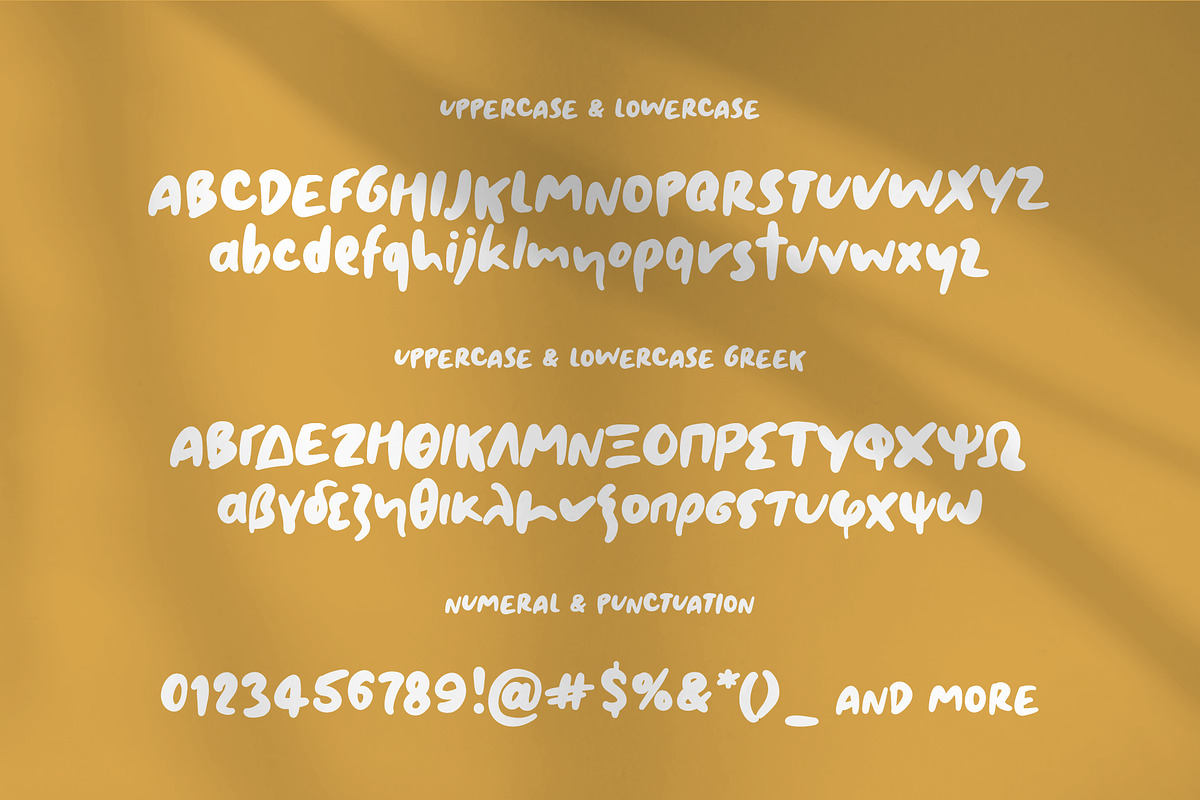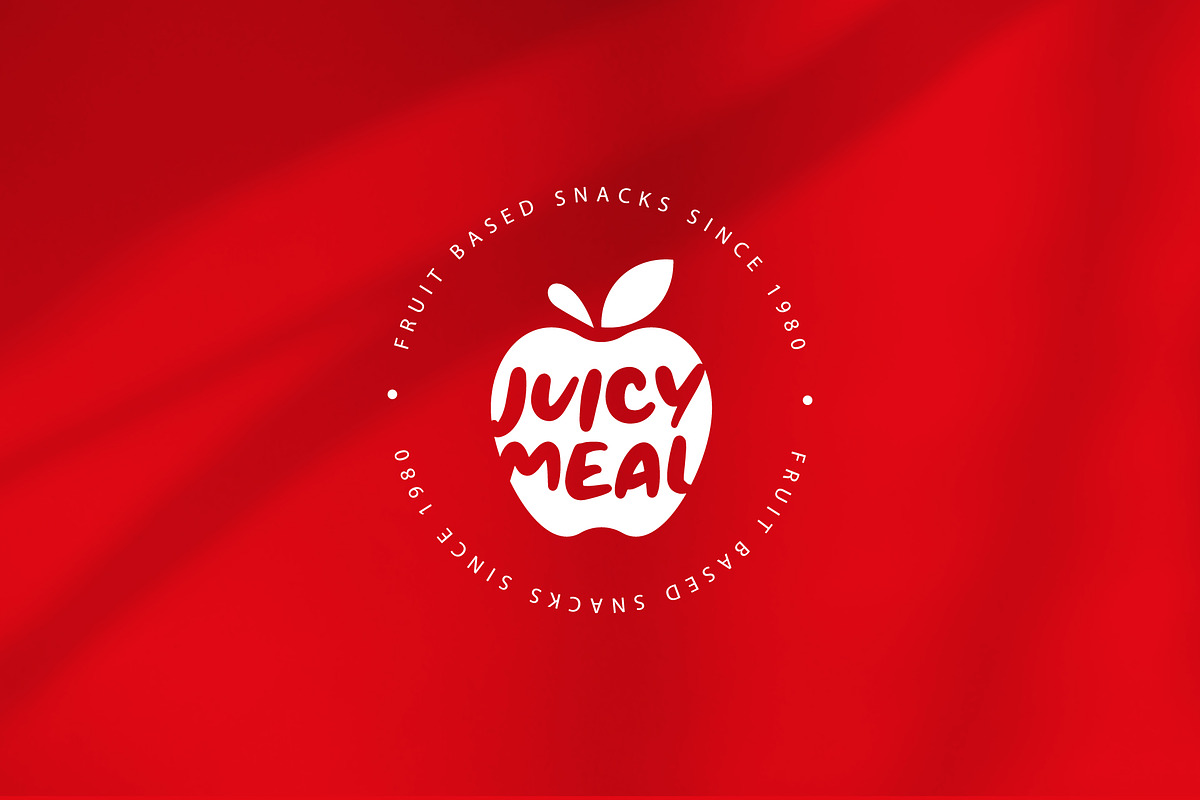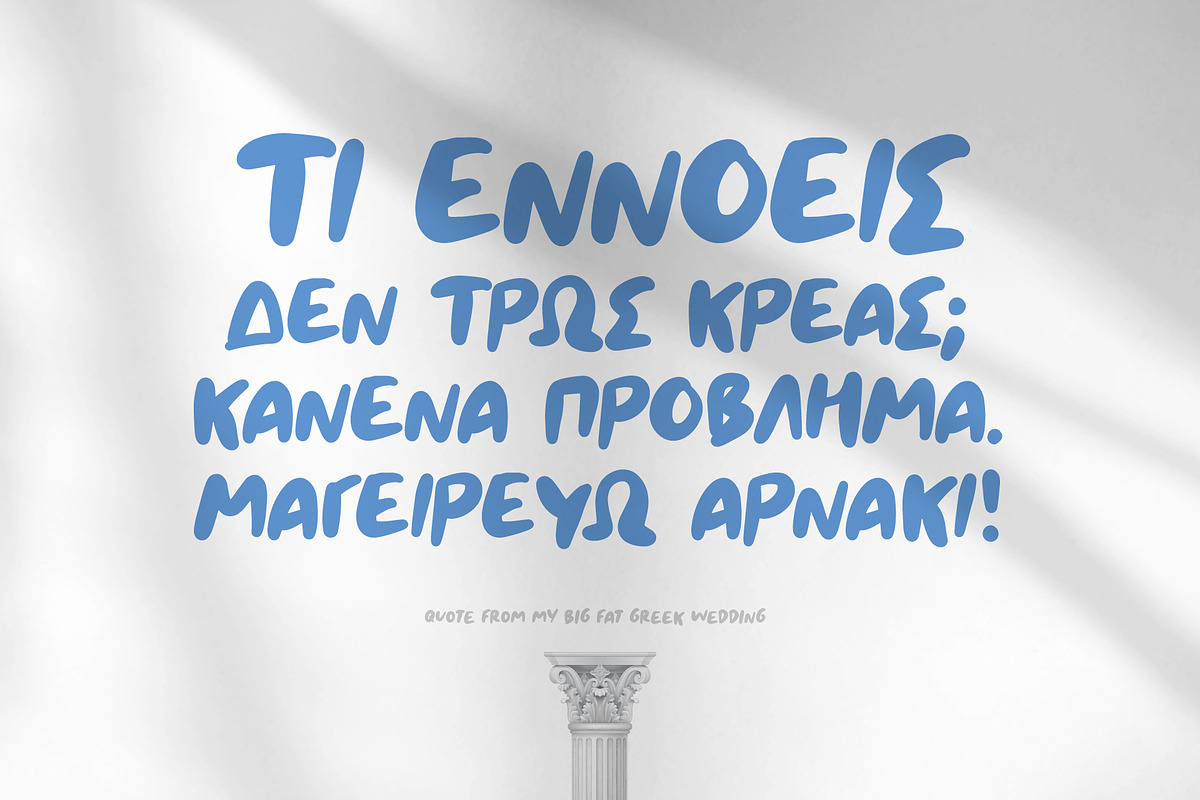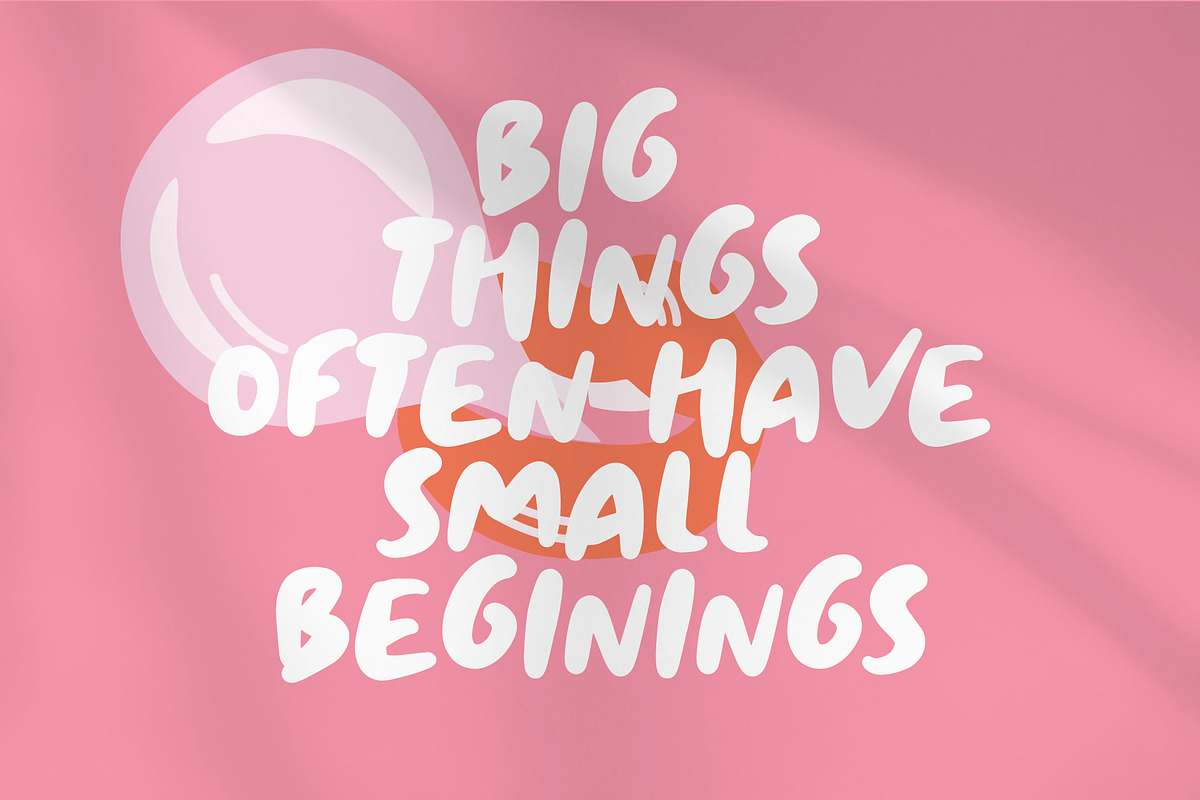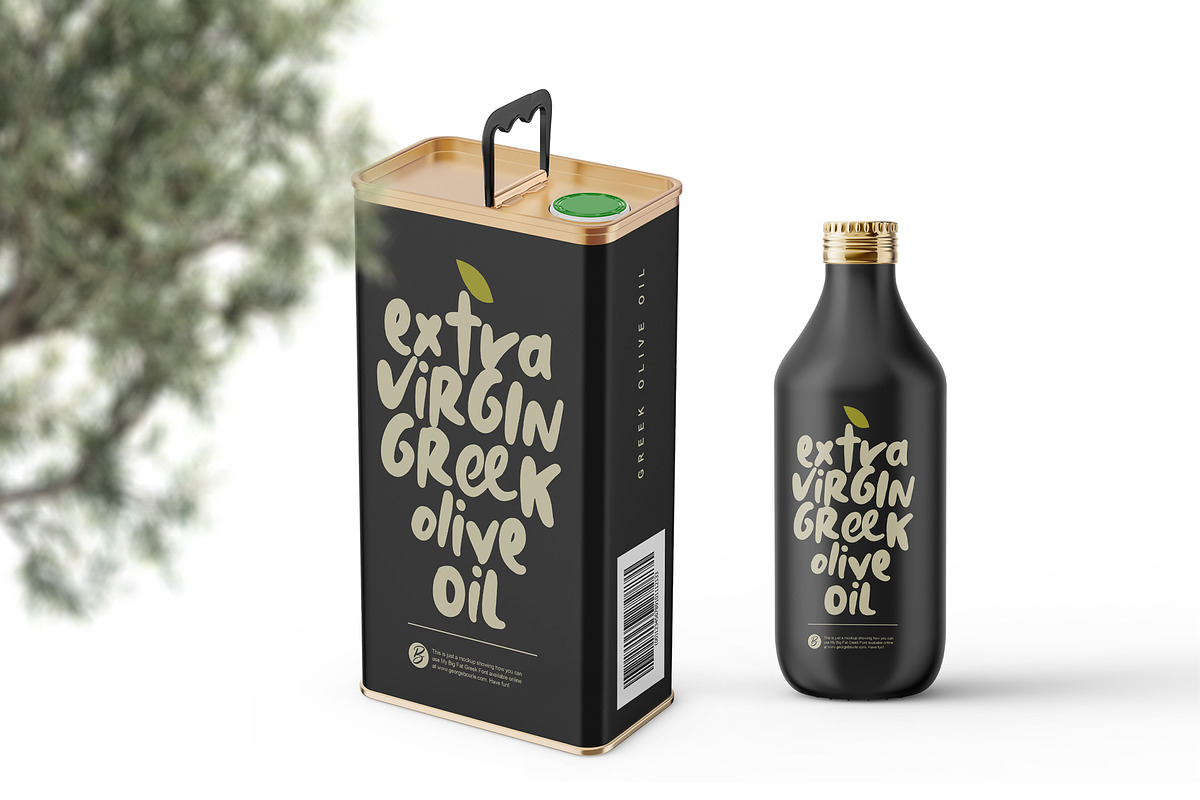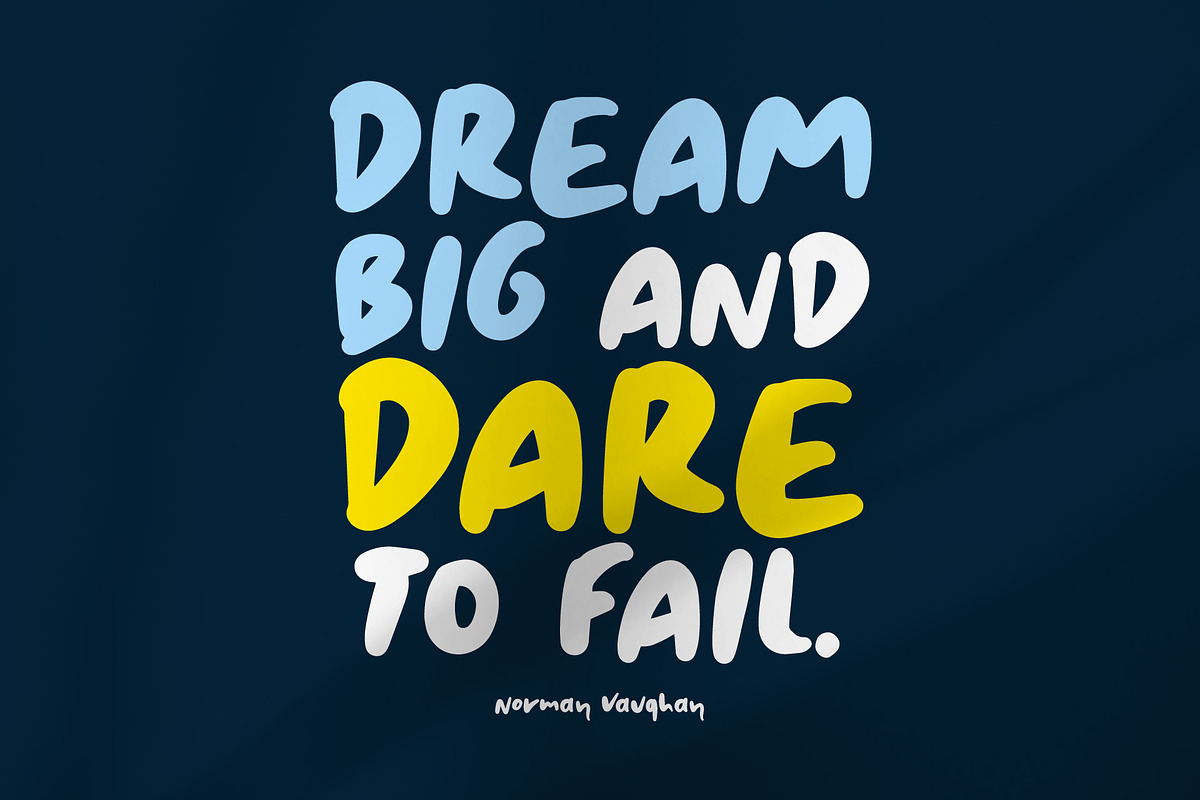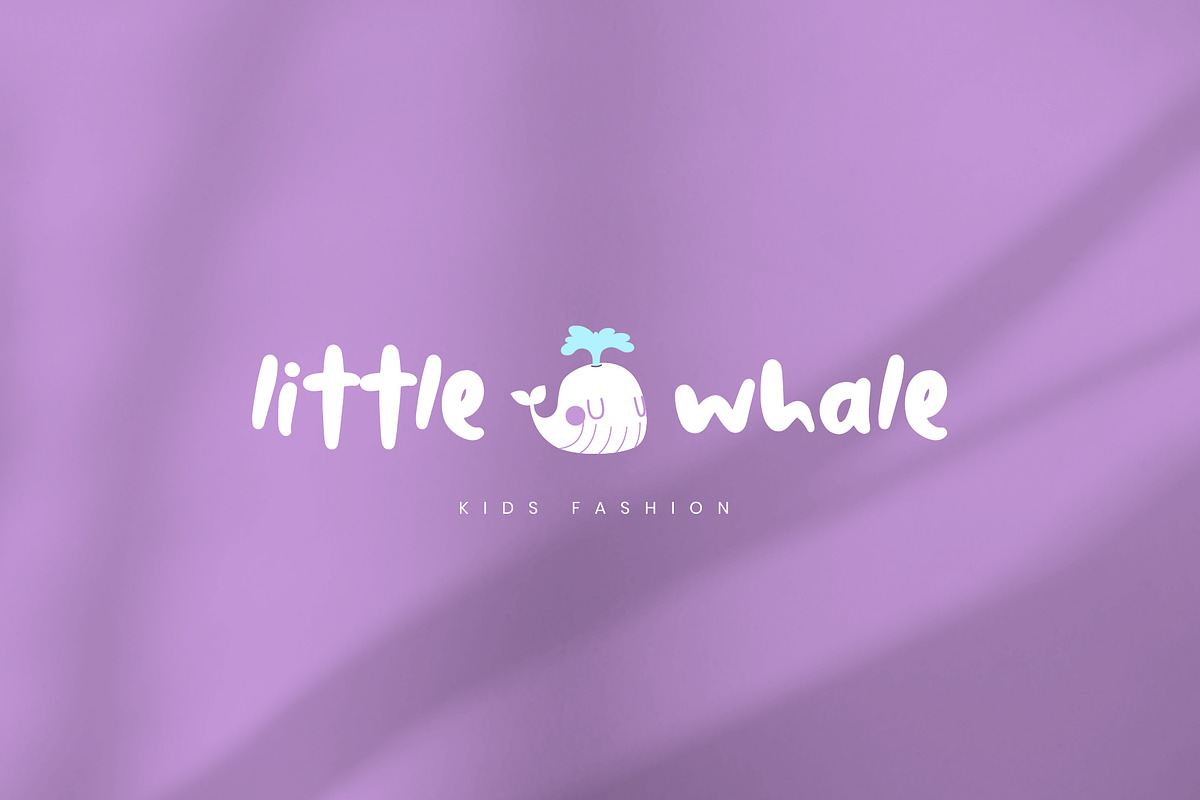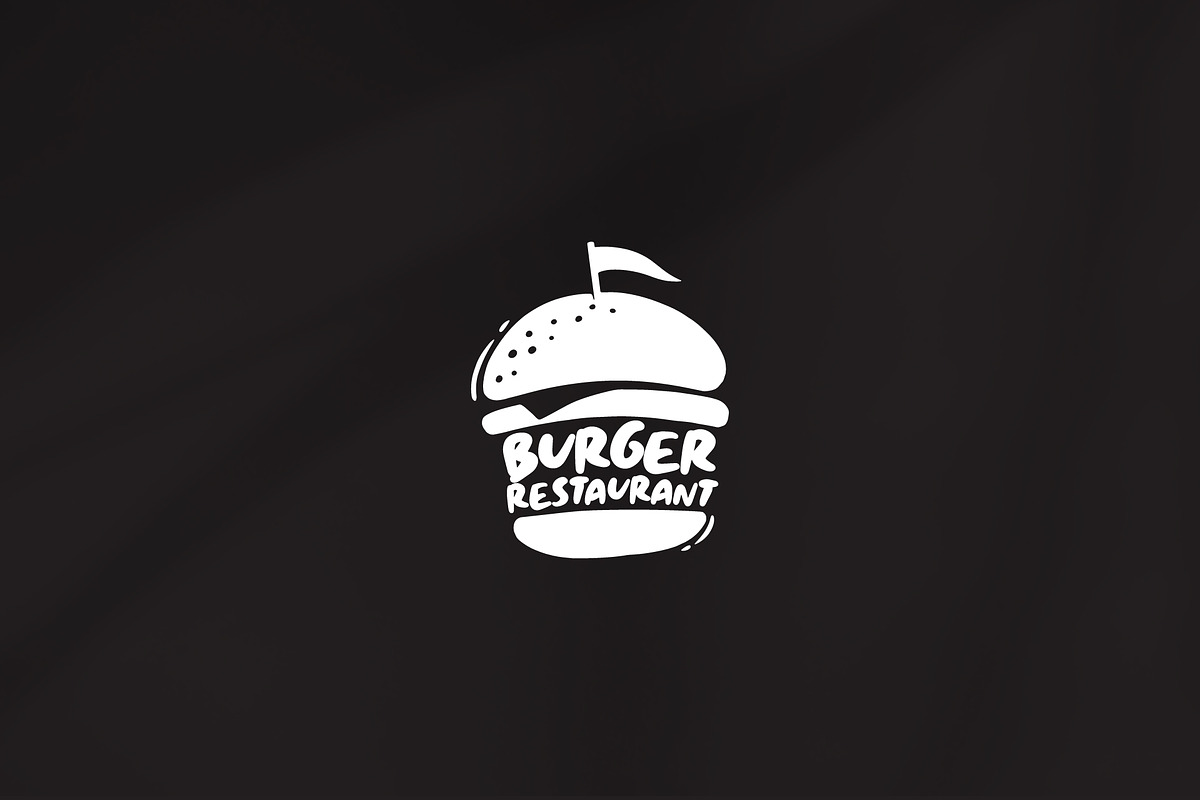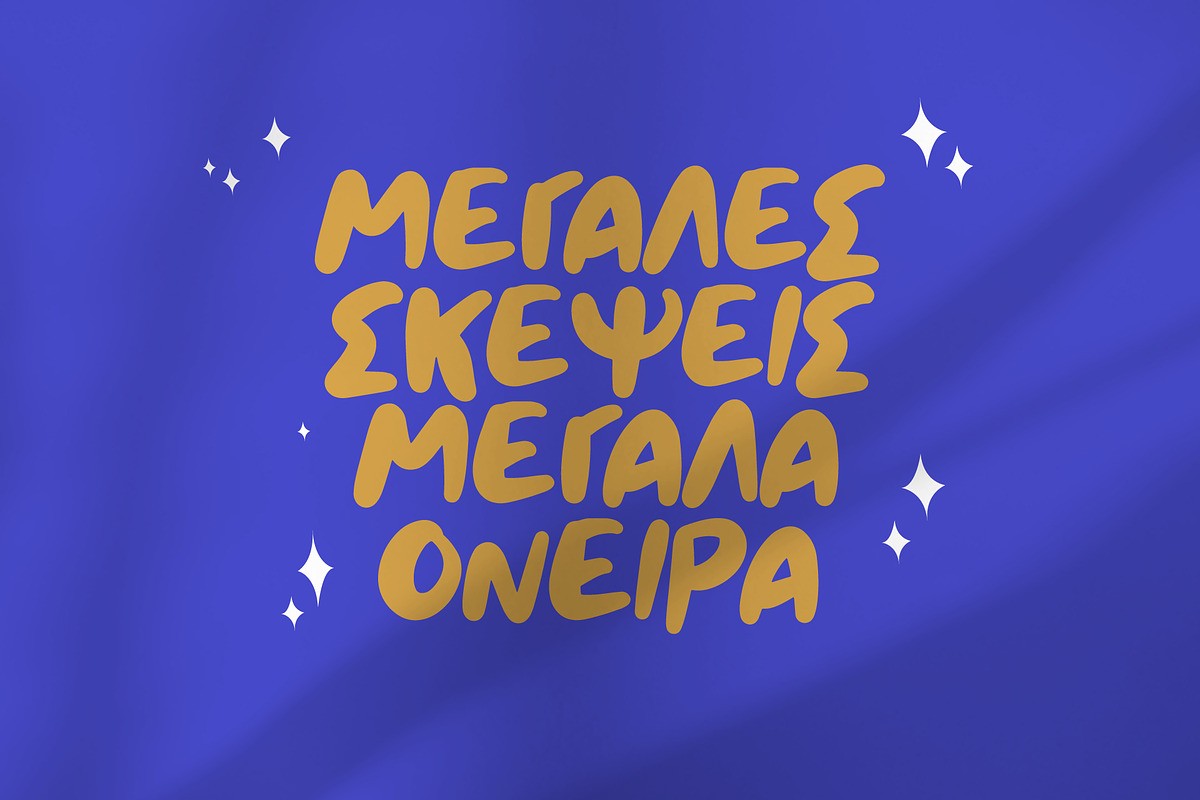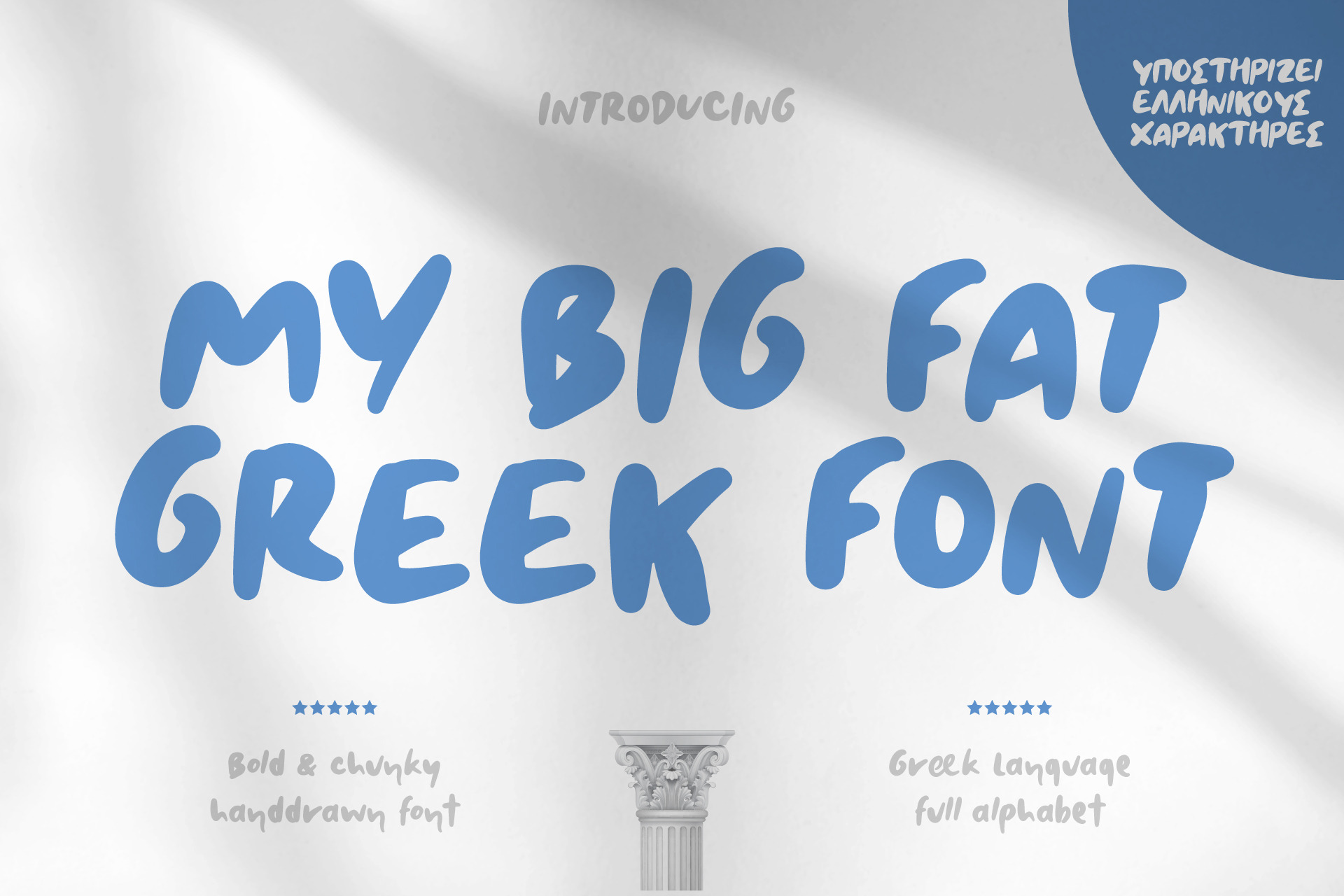
My Big Fat Greek Font
My Big Fat Greek Font is a bold, quirky and fun font, ideal to make your project stand out.
Use it in order to create a hand drawn attitude to your designs such as packaging, logos, social media quotes, editorial and more.
My Big Fat Greek Font includes a full set of uppercase and lowercase letters, numerals, punctuation and ligatures. A dedicated Greek version of the font is also included.